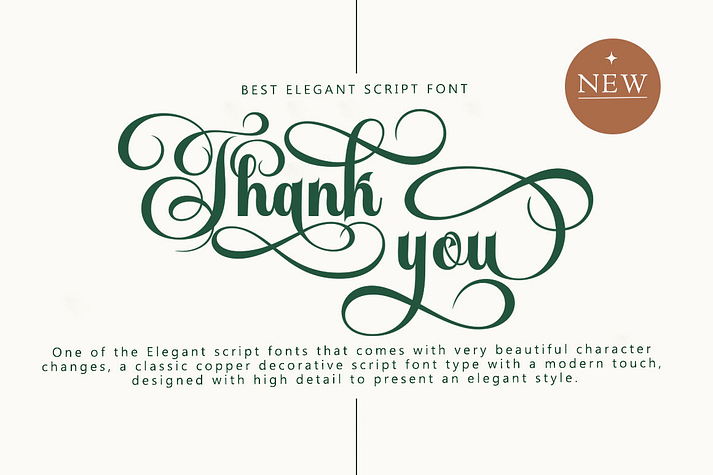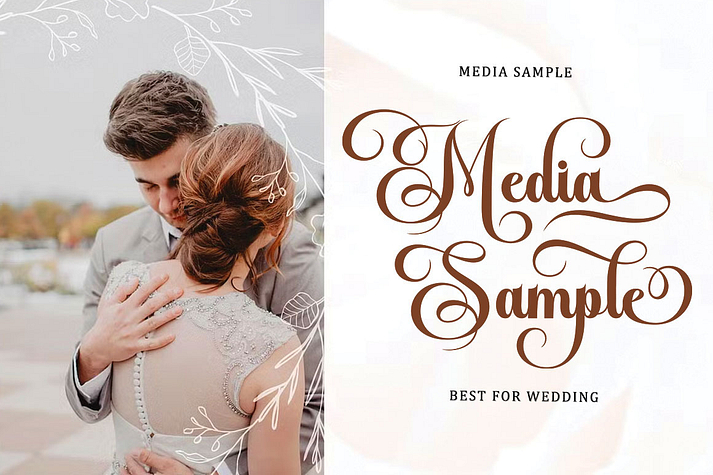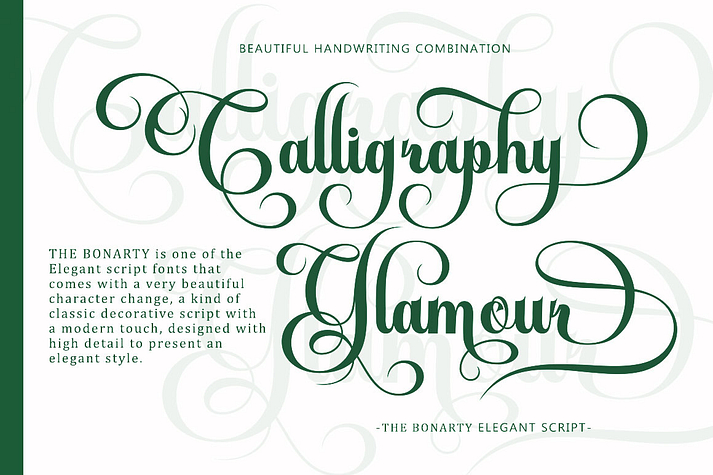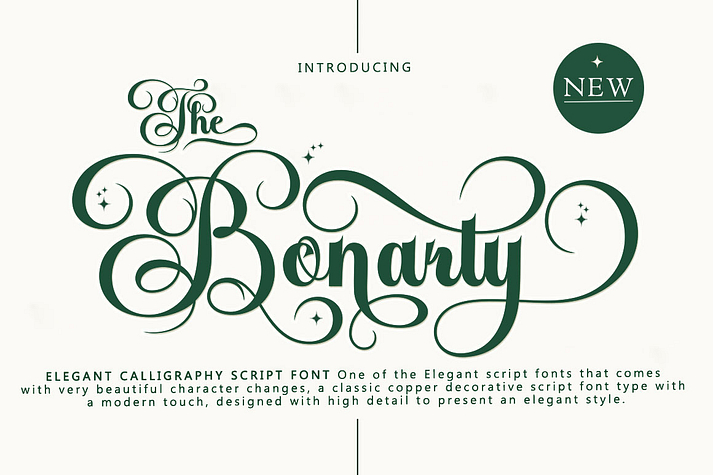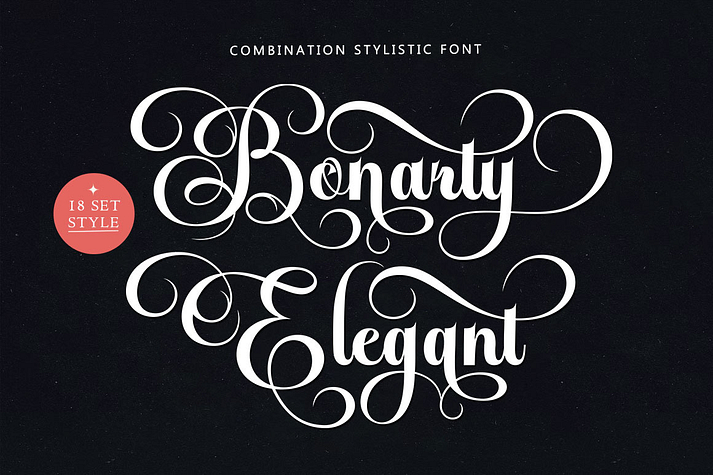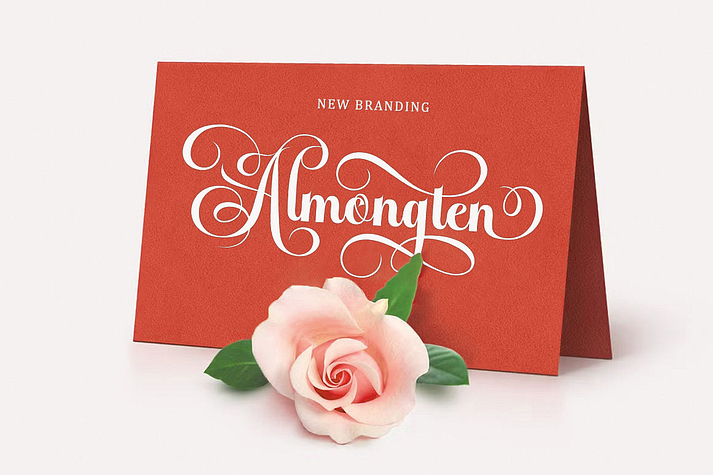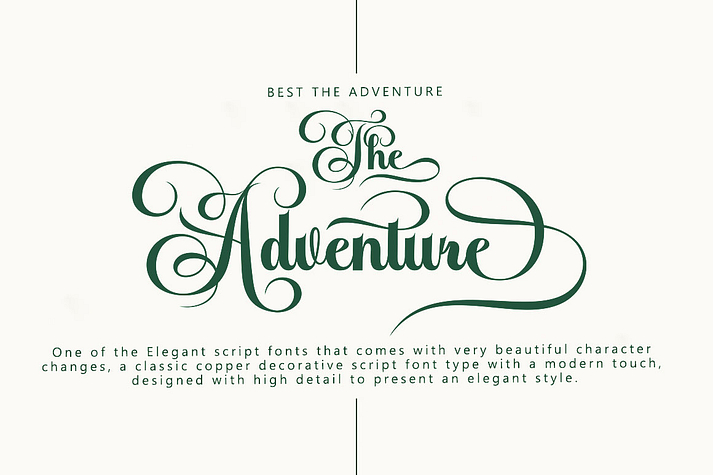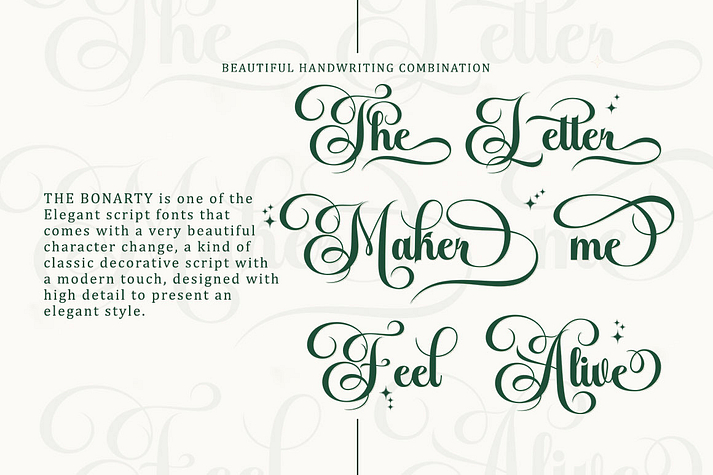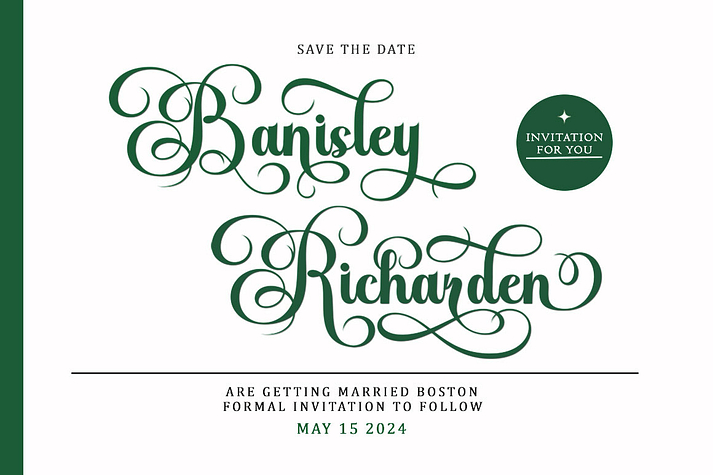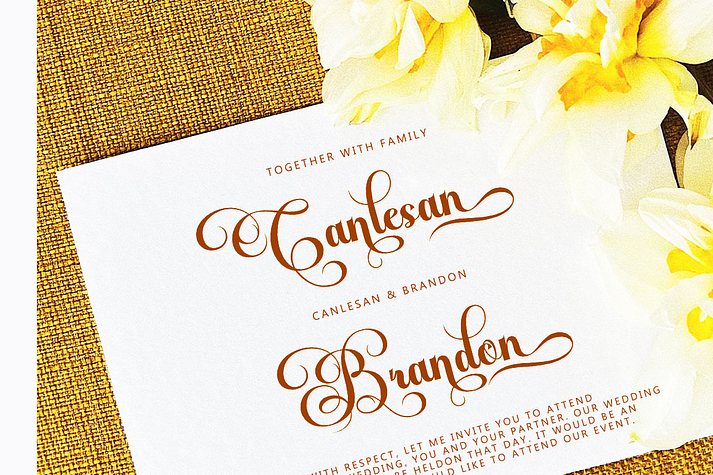
The Bonarty
The Bonarty is a font family published by MasterType.
Unleash your creativity with the Bonarty Script, an elegantly designed font that merges classic copper decorative scripting with a fresh, modern twist. Every letter has been meticulously crafted to depict an undeniable sense of elegance, with attractive and eye-pleasing typography that speaks of femininity, sensuality, and glamor. With its clean simplicity, the Bonarty Script is exceptionally easy to read and boasts of luxurious letter connections that give it a distinct uniqueness. Aware that variety is a vital facet of design, a number of stylistic alternatives are offered for some letters.
Staying true to its classic roots, Bonarty Script is ideal for formal applications including but not limited to invitations, restaurant menus, logos, fashion-forward designs, beauty and makeup branding, stationery, novels, magazines, storybooks, greeting/wedding cards, packaging, and advertisement labels.
Bonarty Script doesn’t just stop averting the norm with its breathtaking beauty but goes a notch higher to incorporate alternative characters, all in support of multiple languages. With OpenType features entailing alternative styles and elegant binding, it doesn’t exactly work automatically; you have to do it manually. This enables you to apply your creativity in combining the glyph variations for stunning results. Use the Bonarty Script for your next project, and let it communicate your story in a uniquely delightful way. Happy Designing!